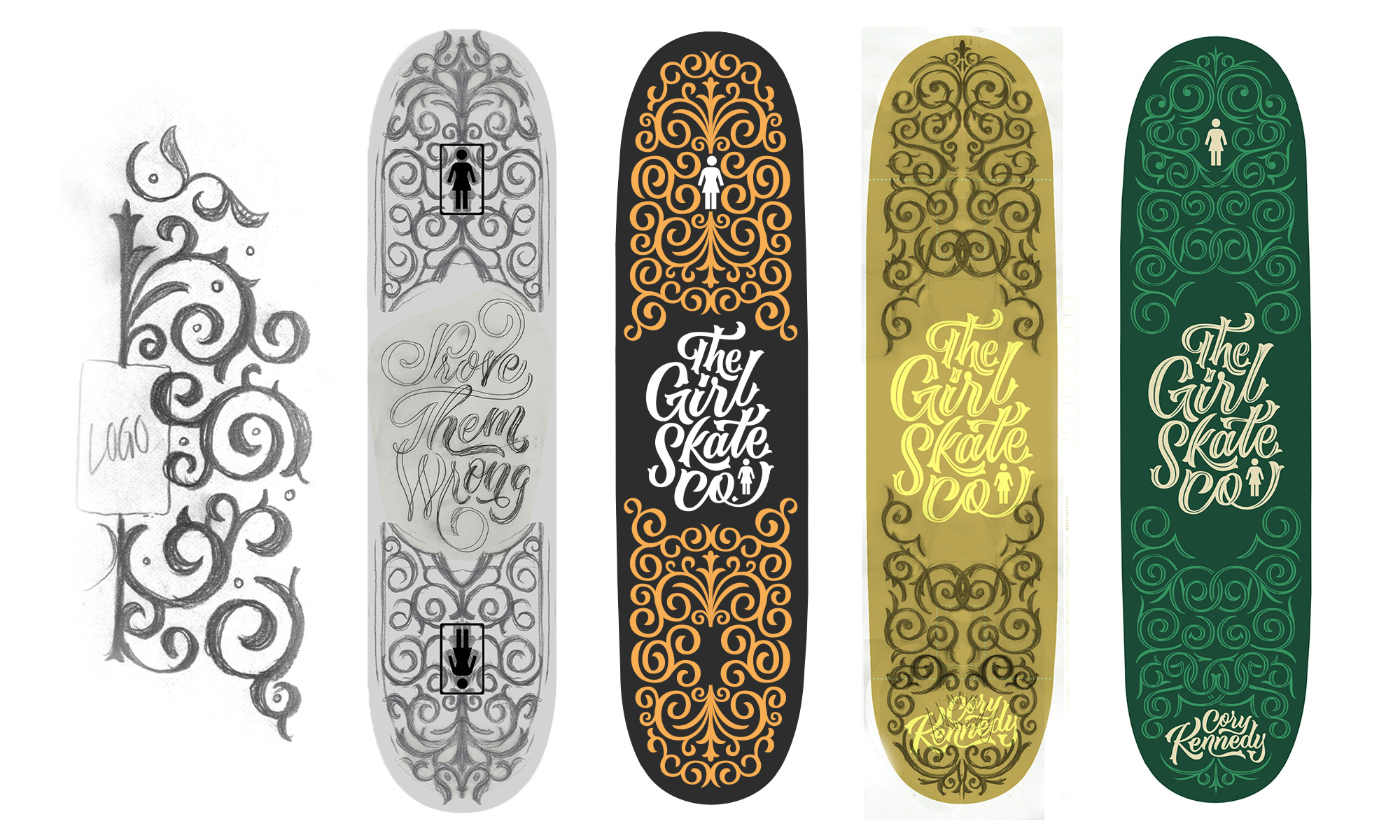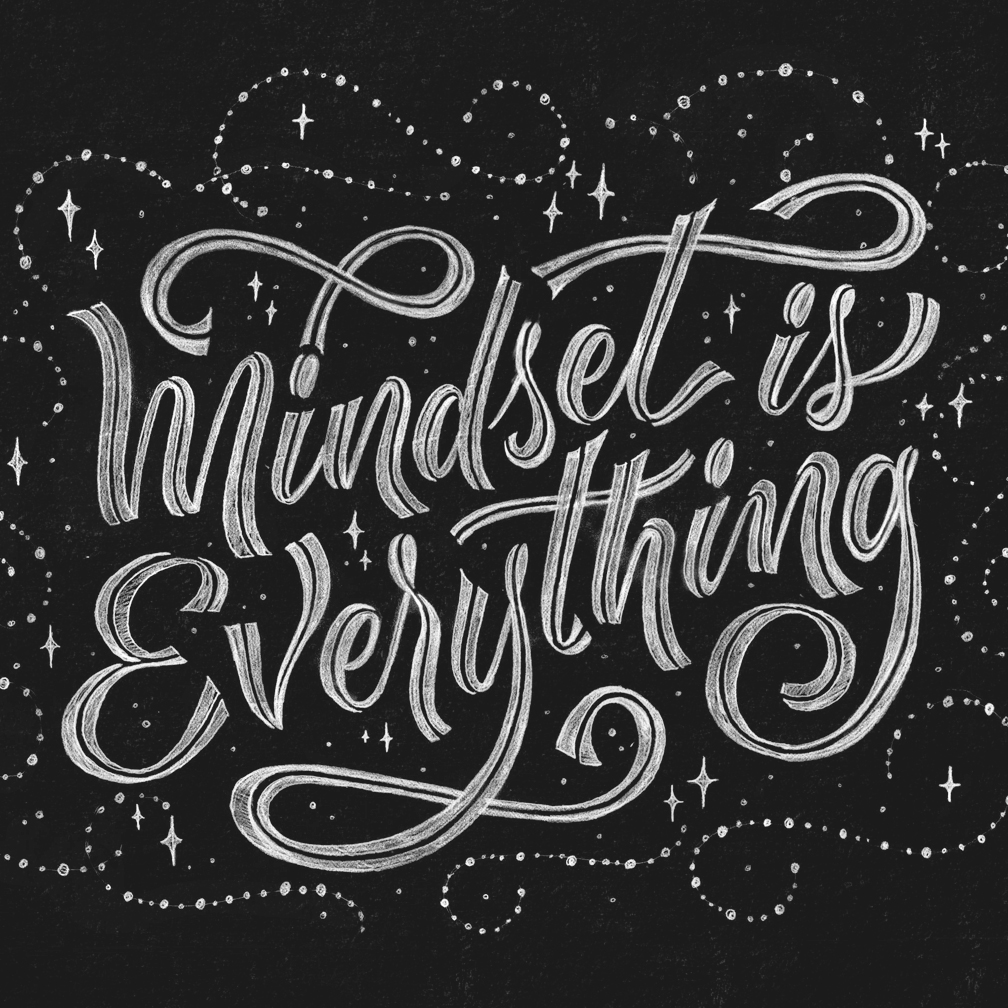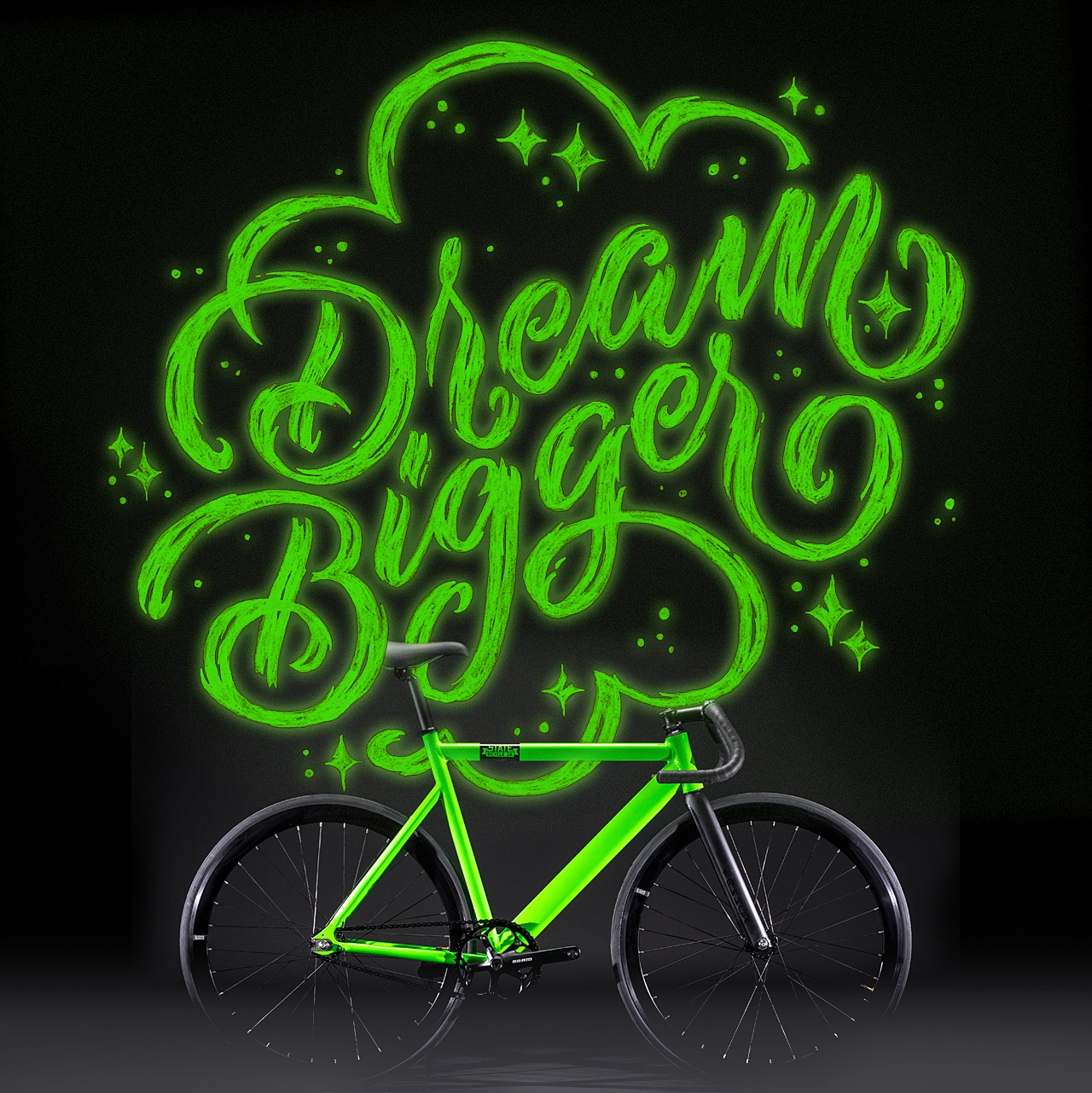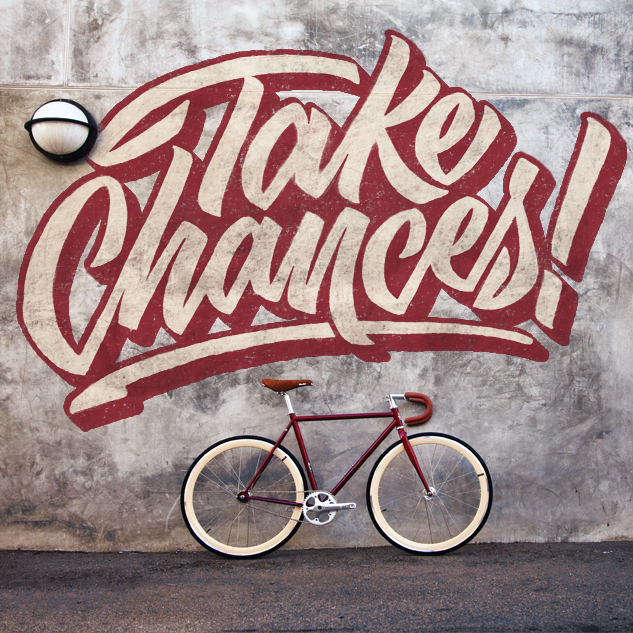
Lettering Legend - Scott Biersack Interview
This months 'Lettering Legend' is none other than Scott Biersack! I interviewed Scott a couple of weeks ago, and have had to exercise so much will power to not share his interview responses sooner as they're so good! Last month Belinda Love Lee did a fantastic job at being Lettering Tutorials 'Lettering Legend' but it's time to introduce you to somebody new.
Scott Biersack is an established letterer, and has worked really hard to get where he is with his lettering. Scott has a fantastic portfolio of lettering work on his website which you can find a link to at the bottom of this interview.
There are some really helpful tips in Scotts interview for beginners, and some things to think over about originality. Scott has created lettering work for some pretty big names, inspired others by providing lettering lessons on tuts+ and is truly a 'Lettering Legend'.
If you could only letter in one style again forever more, would you choose serif or sans serif?
"Ah, I think I’ll have to go with serif because serif letterforms have so much more character and uniqueness to them! There are so many ways to draw serifs… so I think drawing serif letterforms would at least keep me entertained."
A lot of your lettering has quite a vintage look and feel about it, where do you find your inspiration to create vintage lettering?
"I try to get the vintage look occasionally! Depends on the project of course. For me, I very much enjoy going antiquing whenever I go to a new city or state. Antique stores have the coolest stuff of course! I love seeing where we as a society have come from. It’s crazy to see a typewriter or letterpress machine and compare that to the amazingly fast technology we have now. So, obviously I try to find inspiration from old packaging, labels, postcards, etc, that I find while antiquing. Everything back then was all hand-done and looked amazing!"
Your lettering career has led you to create work for some big named clients such as Four Seasons, TGI Fridays and Warner Bros. How did theses lettering opportunities come about, and what advice would you give those that letter who want to eventually work with big named clients?
"It’s been a wild experience being able to work alongside those clients. Honestly, I believe it was sheer luck. I share my work via social media websites such as Instagram, Facebook, Twitter, etc. and I believe that’s the whole reason why people know my work. They must stumble across my creations across social media, website features, etc. So, obviously I’d definitely begin by sharing your work. If you keep it to yourself, nobody will see it! It’s easy to share your work via social media sites; they make it incredibly painless, really. My advice, just share what you create and good things will come. Maybe not right away, but they will come, I promise."
On your website you quote “practice makes perfect”. How often do you practice lettering, and how often would you recommend those new to lettering practice to reach a higher standard?
"I definitely preach that phrase any chance I get. If you scroll to the bottom of my Instagram feed, you can see where my lettering first started. Let me tell you, it was terrible. But, after practice, a ton of research, some workshops and lots of lost hours of sleep, I now have the skillset I’ve been reaching for. I knew I wanted to become better at lettering and the only way to do that was to force myself to draw every single day. You only get better through practice.
For me, practicing every single day was crucial to my development. It was definitely a struggle towards the end of my Project365, but oh so very helpful. I’d recommend at least practicing 3-5 times a week at the least! Figure out a schedule that works for you. Whatever it is, as long as you’re practicing, you’re getting better."
Is it best to be comfortable at lots of different styles of lettering or develop your own style?
"I highly recommend being comfortable in ALL kinds of styles to be a well-rounded lettering artist. For me, if I was drawing the same type of letterforms day in and day out, I’d get incredibly bored. I would feel like I’m not progressing too! I need a challenge - drawing all types of letterforms is a challenge in itself.
As for “developing your own style”…I think there’s a fine line there. While developing your own style is awesome, I think developing your own “style” with lettering can be somewhat dangerous. I only say that because many new lettering artists attempt to create new ways of constructing letters or even creating new letters! There is a foundation of history/knowledge of our alphabet, so don’t try to create new things that wouldn’t make sense to the common person."
What advice or tips would you give those first starting out at lettering?
"The one piece of advice I can give is this:
If you’re actually trying to learn lettering, and you want to share you work with the world…Whatever you do, do not follow trends. What I mean by that is, there’s tons of lettering “trends” going on right now, one in particular is drawing an inspirational phrase/quote on top of a photo of mountains / ocean / sky / etc.
It’s pretty much the trendiest thing you can do right now. Stay far away from that stuff if you want to get noticed. Don’t join the crowd, stray from it."